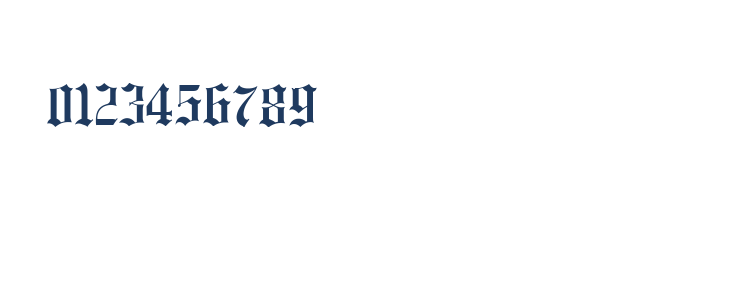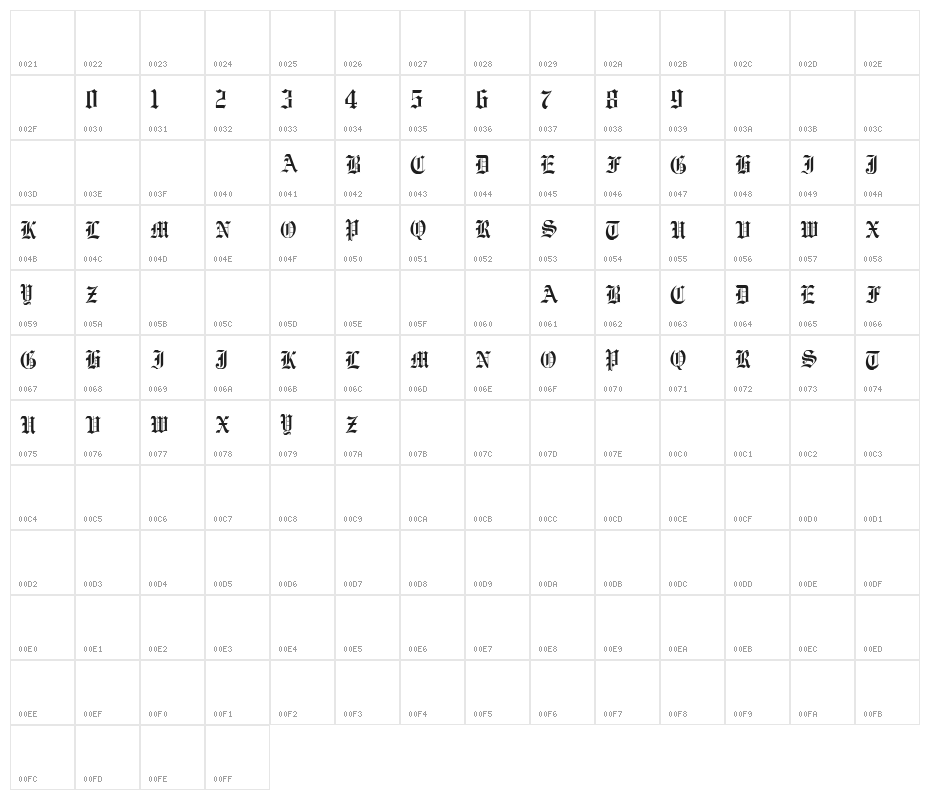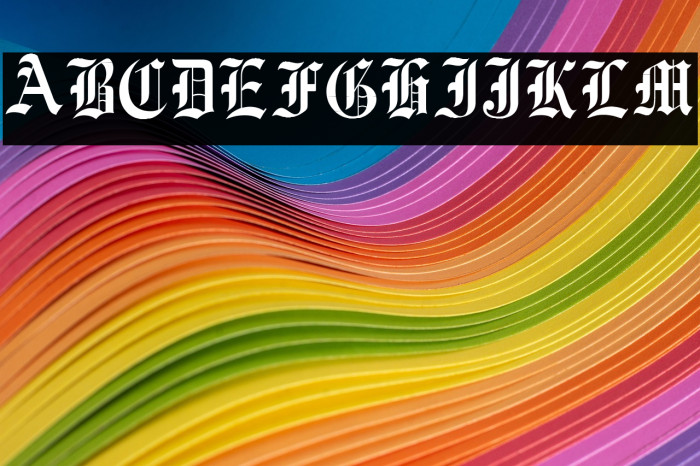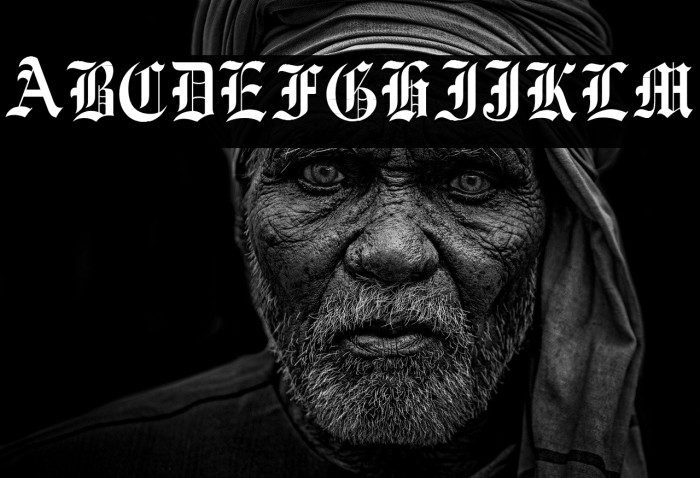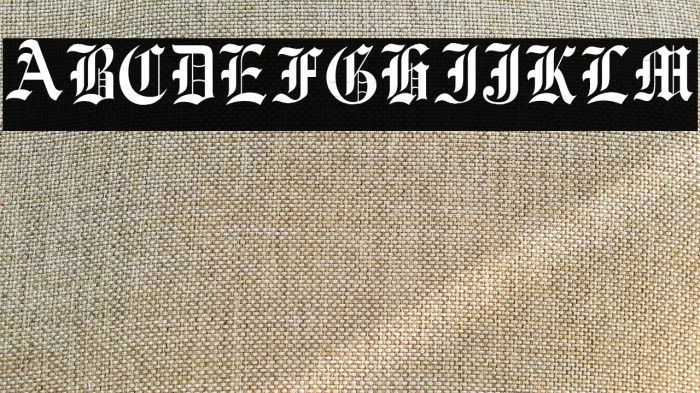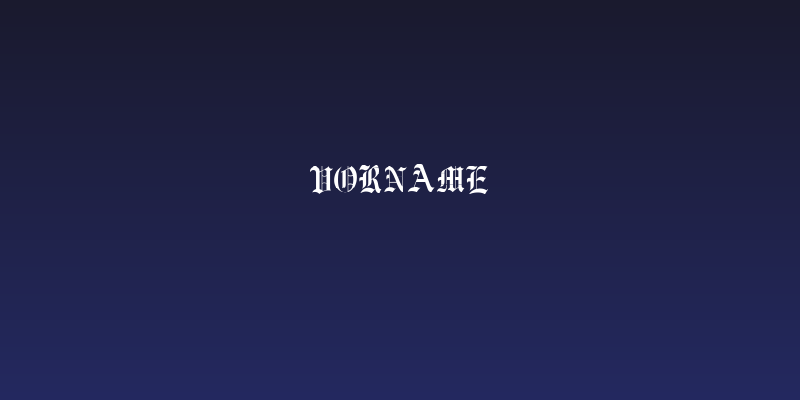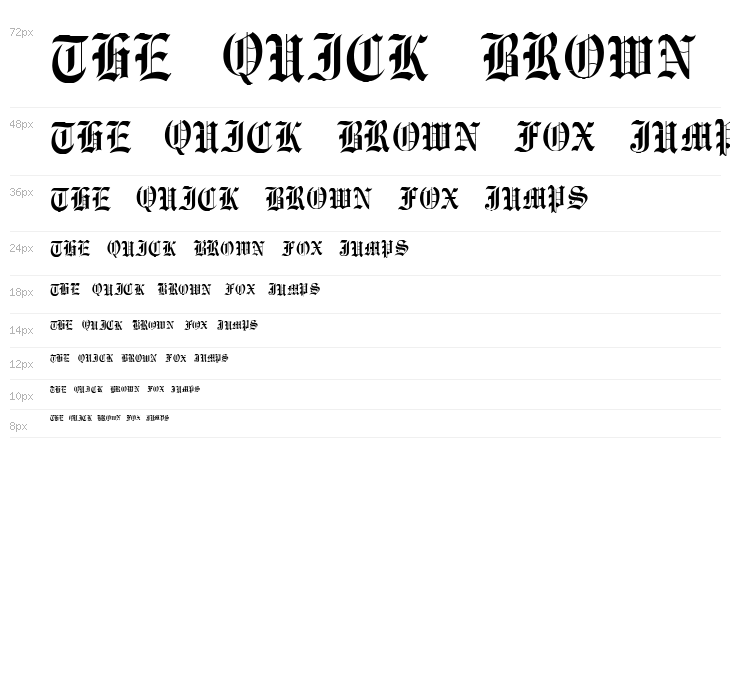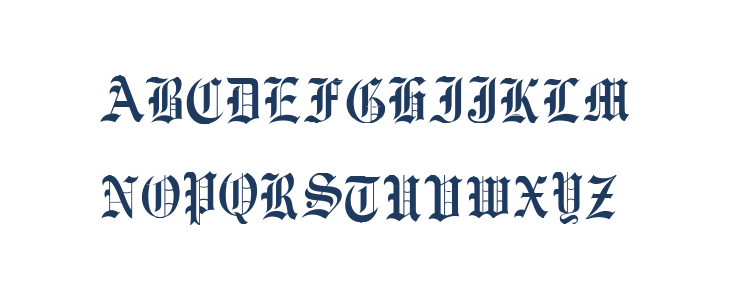
Vorname Font
Vorname Description
This font exhibits a classic blackletter style, characterized by its ornate and intricate design. The letters are bold and angular, with sharp serifs and a strong vertical emphasis. The strokes are thick, giving it a dramatic and authoritative presence. This style is reminiscent of traditional Gothic script, often used in medieval manuscripts and historical documents. The numbers and special characters maintain the same elaborate design, ensuring consistency across all glyphs. The overall appearance is both decorative and formal, making it suitable for projects that require a touch of elegance and tradition.
| Proposed Projects | Ideal for certificates, invitations, book covers, and branding that requires a historical or formal aesthetic. |